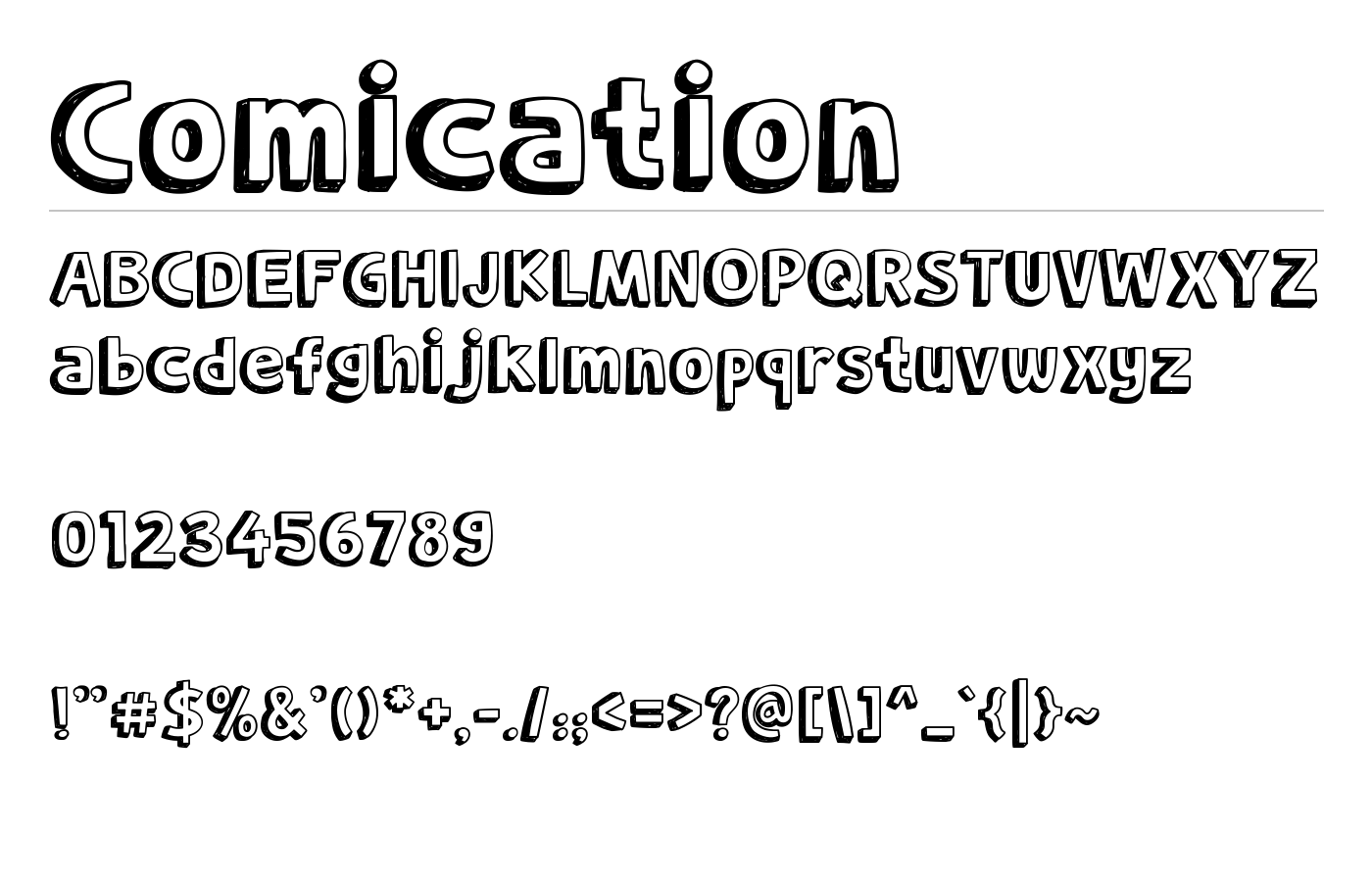
Comication is a playful and bold sans serif font with a hand-drawn, comic-inspired style that adds character and charm to any design. Its thick strokes, slightly irregular shapes, and wide letterforms give it a lively and informal feel, making it perfect for fun, creative projects like children's books, posters, and casual branding. This font stands out with its friendly personality and strong presence, ideal for grabbing attention in headlines and display uses.
| Font family | Comication Font |
| Designer | Sahirul Puguh |